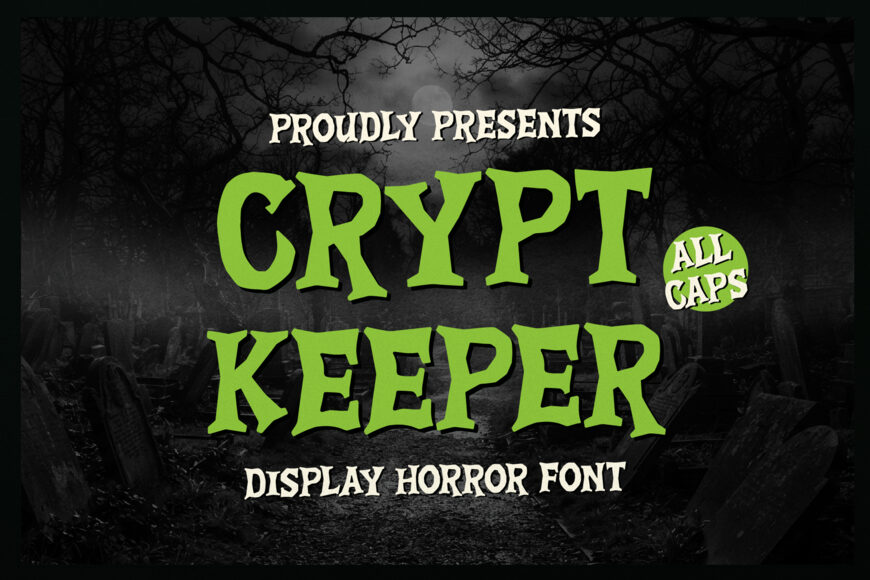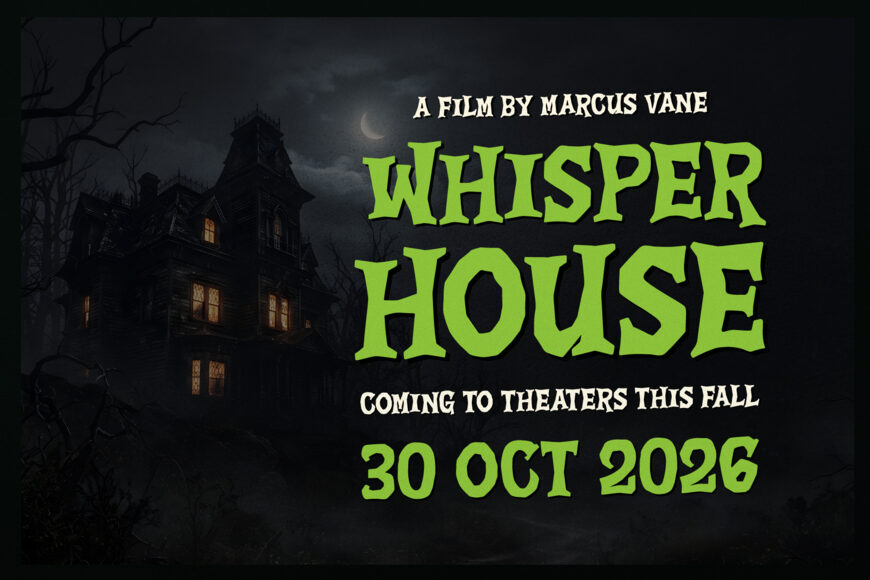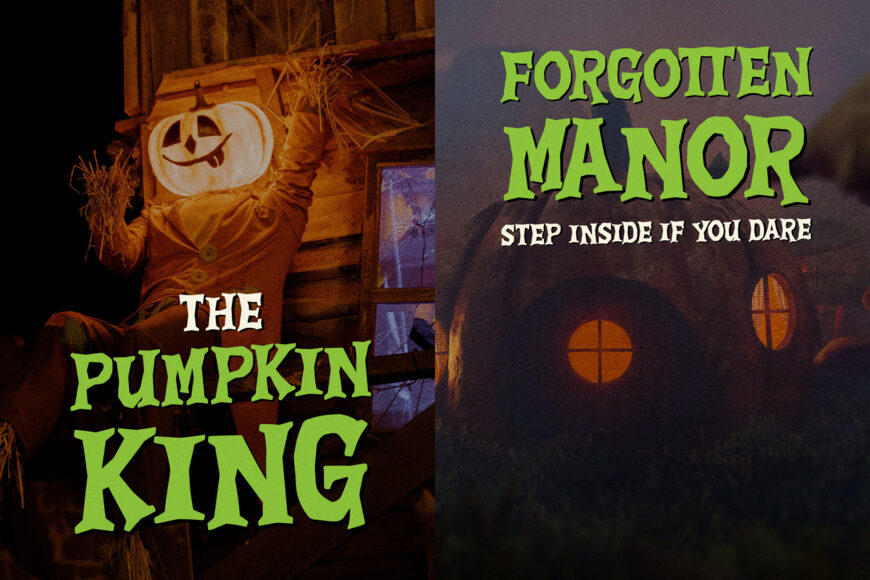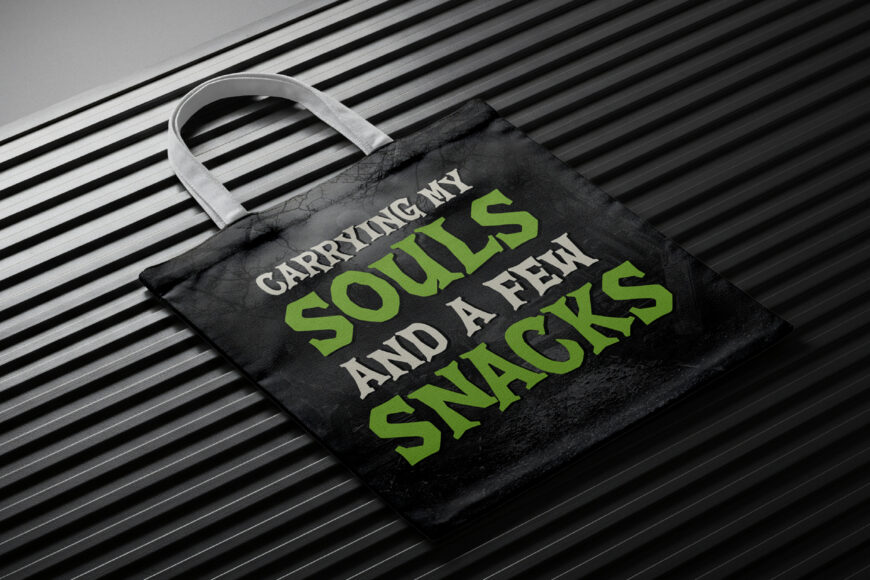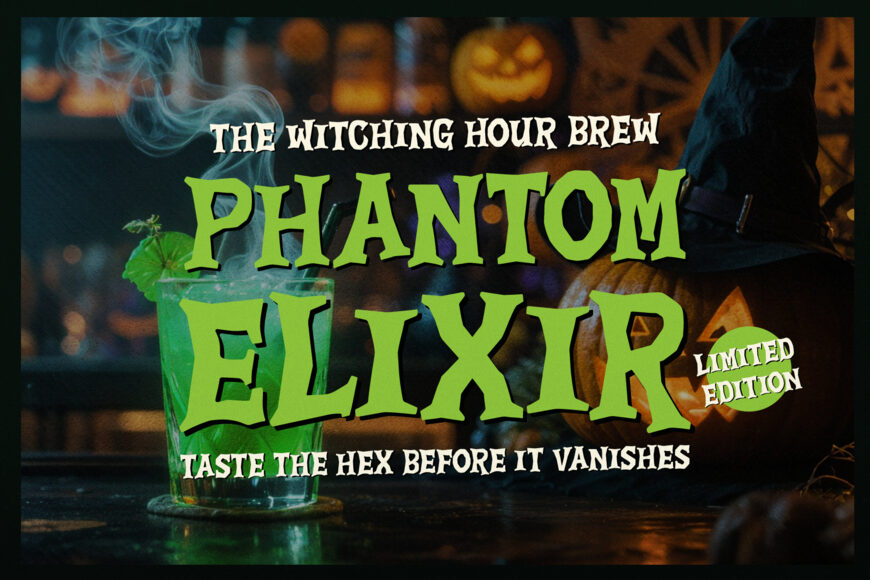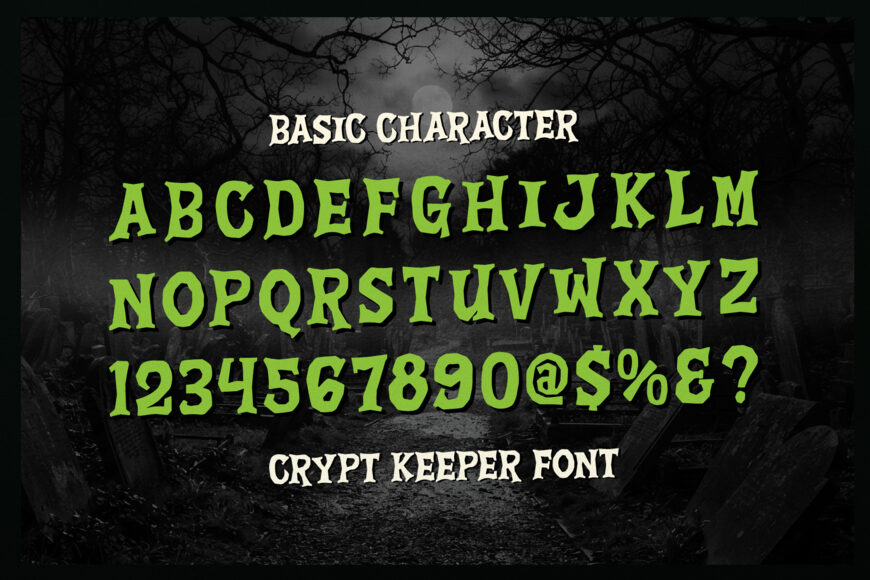
Unleash eerie horror nostalgia, creepy thrill, and vintage comic macabre with Crypt Keeper! Built as an all-caps display horror font, it features jagged flared serifs, uneven organic letterforms, and bone-like carved edges. Its bold retro monster-movie vibe gives headers an instantly spooky, high-impact presence that commands attention.
Ideal for Halloween party flyers, horror movie posters, spooky book covers, haunted house signage, t-shirt prints, trick-or-treat decor, and custom Cricut or Silhouette craft SVG projects!